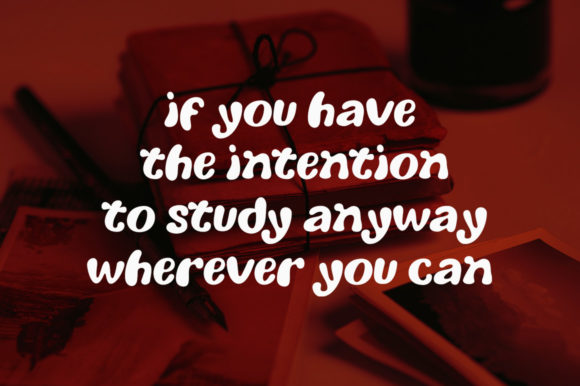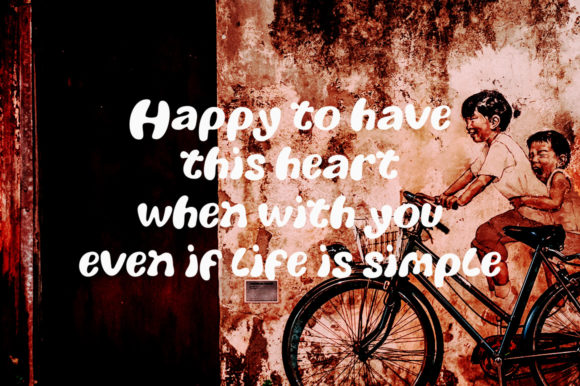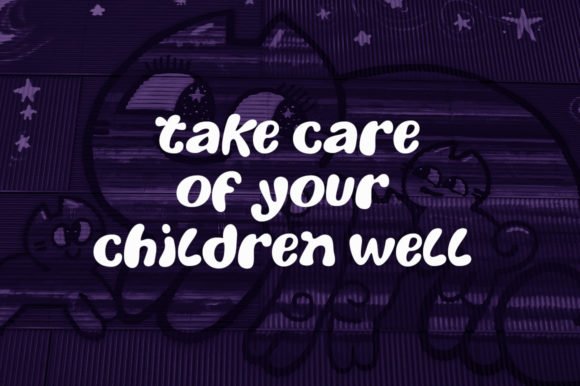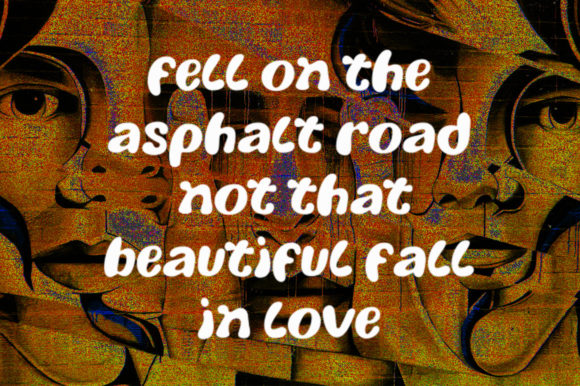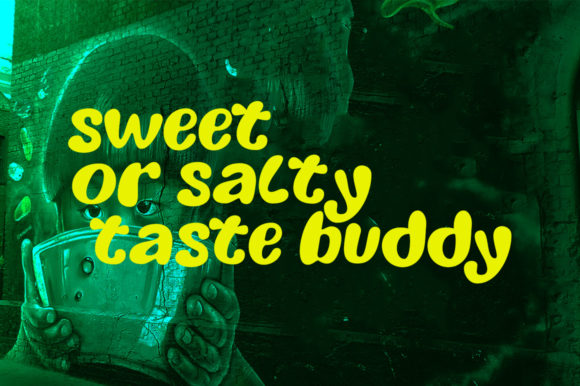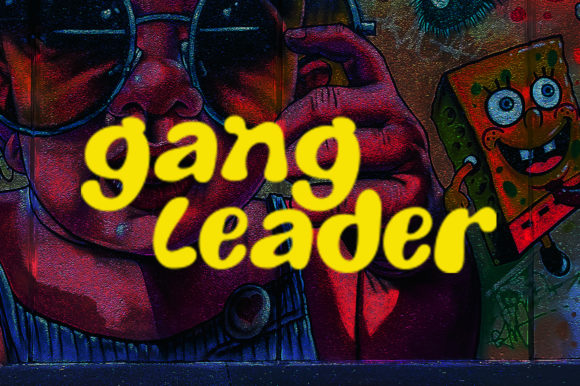
Introduction to Fairy Tail Font
Remember that magical moment when you stumbled upon the perfect font for your creative project? It’s like finding the missing puzzle piece that brings your entire design to life. For designers, discovering a reliable font that perfectly captures the essence of their vision can be a game-changer.
That’s where Fairy Tail Font comes in – a friendly and clean display font that embodies fun and authenticity. Whether you’re working on a children’s activity or a school project, this font is the perfect choice to add a touch of whimsy and personality. Its transparent background and high-quality design make it a valuable resource for any creative endeavor.
Not only is Fairy Tail Font a great addition to any design project, but it’s also available for free download, making it an accessible resource for designers of all levels. In this article, we’ll delve into the world of Fairy Tail Font and explore its features, benefits, and how it can elevate your next creative project.
Key Features of Fairy Tail Font
- High-quality, hand-drawn design suitable for creative projects and design resources.
- Transparent background, allowing for easy customization and versatility in various design applications.
- Resolution-independent design, maintaining its high quality and clarity at any size or resolution.
- Perfect for use in graphic design, digital art, and other creative projects where a unique and whimsical touch is desired.
- Part of the Fairy Tail Font family, offering a range of styles and variations to suit different design needs and preferences.
Honest Review: Fairy Tail Font
I recently had the chance to work with the Fairy Tail Font, and I’m excited to share my thoughts with you. As a designer, I’m always on the lookout for high-quality fonts that can elevate my creative projects.
One of the things that really stands out about the Fairy Tail Font is its unique and playful style. It’s perfect for designers who want to add a touch of whimsy to their work. I used it for a recent project, and it really helped to set the tone for the entire design.
Here are some of the things that work well with the Fairy Tail Font:
- Its transparent background makes it easy to use on a variety of backgrounds.
- It’s a high-quality font that looks great at any size.
- It’s a bit limited in terms of versatility – it’s best suited for projects with a playful or fantasy theme.
- It may not be the best choice for designs that require a lot of text.
Overall, I’m really impressed with the Fairy Tail Font. It’s a great addition to any designer’s toolkit, and it’s perfect for creative projects that require a touch of magic.
To achieve a transparent background, use the font’s transparent background feature or edit the image in a program like Adobe Photoshop. Tips for getting the most out of the Fairy Tail Font include experimenting with different font sizes, colors, and combinations to achieve unique designs.
The Fairy Tail Font is commonly used in graphic design, digital art, and creative projects that require a unique and eye-catching font. It’s also ideal for designing logos, posters, and other visual materials that require a high-quality font.